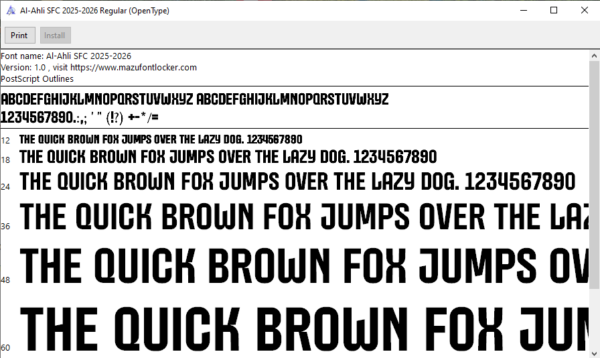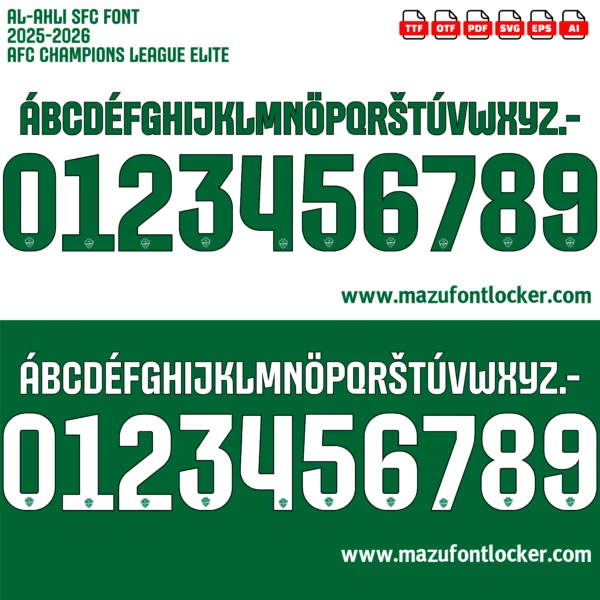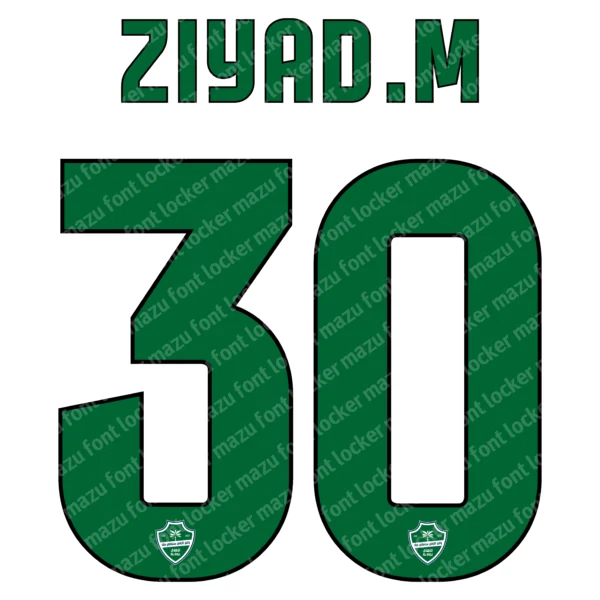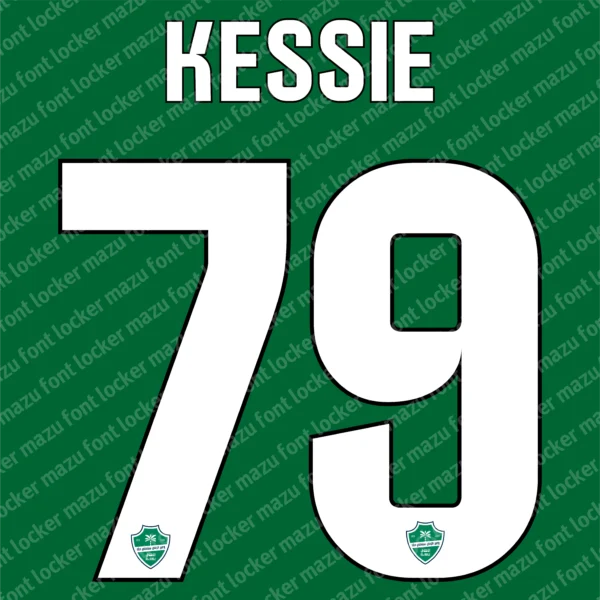
Al-Ahli 2025-2026 Font Vector – Epic Red Eagles Masterpiece
This font captures the bold, fearless, elegant, and ultra-premium lettering that perfectly reflects the club’s legendary Saudi heritage combined with the fierce, unstoppable spirit of the Reds — delivering unmatched tradition, intense passion, elite craftsmanship, and pure Al-Ahli fire for premium jersey mockups, epic football designs, spectacular sports visuals, standout fan creations, and professional branding projects.
Al-Ahli 2025-2026 Font Vector – Authentic Royals Green Typeface
The Al-Ahli 2025-2026 Font Vector is a premium typeface that accurately recreates the official match lettering worn by Al-Ahli Saudi FC during the 2025-2026 season. This high-quality vector font kit captures the bold, elegant, and dynamic typography that represents the pride, heritage, and championship spirit of the Green Knights.
Designed for professional designers and passionate Al-Ahli supporters, the Al-Ahli 2025-2026 Font Vector delivers perfect authenticity for creating realistic jersey mockups, fan merchandise, matchday posters, social media graphics, and Saudi football content. It pairs beautifully with Al-Ahli’s iconic green and white kit, one of the most recognizable football identities in Asia.
This font stands out because of its sharp vector precision and strong club identity. Every letter and number is crafted to match the exact style used on the players’ shirts during Al-Ahli’s 2025-2026 campaign. Whether you are creating realistic kit templates or exciting Al-Ahli-themed content, the Al-Ahli 2025-2026 Font Vector gives your designs that authentic King Abdullah Sports City atmosphere.
The letterforms in the Al-Ahli 2025-2026 Font Vector are bold, modern, and highly readable. The strokes feature elegant geometric construction combined with athletic styling, creating a professional appearance that stands out on jerseys while preserving Al-Ahli’s rich football heritage.
The numerals feature strong curves and clean edges, delivering a confident and premium appearance. This vector design ensures flawless scalability and excellent legibility across both print and digital applications.
• Full uppercase A–Z and numbers 0–9 in authentic Al-Ahli 2025-2026 style
• Multilingual Latin character support including Arabic-influenced accents and special characters
• Includes the exact crest glyph placement used beneath player numbers
Al-Ahli 2025-2026 Campaign
The 2025-2026 season was another triumphant chapter for Al-Ahli Saudi FC. The Green Knights competed fiercely in the Saudi Pro League and shone brightly in the AFC Champions League Elite, showcasing world-class talent and relentless ambition at King Abdullah Sports City in Jeddah.
The Al-Ahli 2025-2026 Font Vector is an independently designed typeface package. It is carefully crafted to replicate the official shirt lettering style used during Al-Ahli’s 2025-2026 season. This font kit is perfect for creative projects, fan edits, football-inspired artwork, and custom sports graphics.